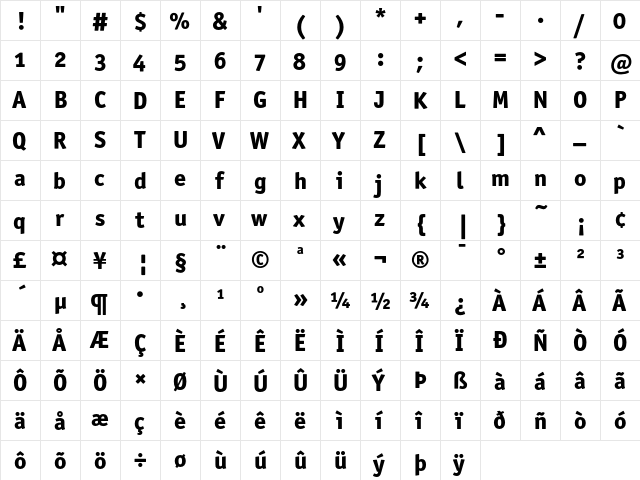
OfficinaSansITC ExtraBold OS
Design Context for OfficinaSansITC Typeface
OfficinaSansITC takes a measured approach to typography — its balanced proportions and neutral character make it a reliable workhorse for both digital and print work. The heavy weight commands attention and anchors typographic hierarchies.